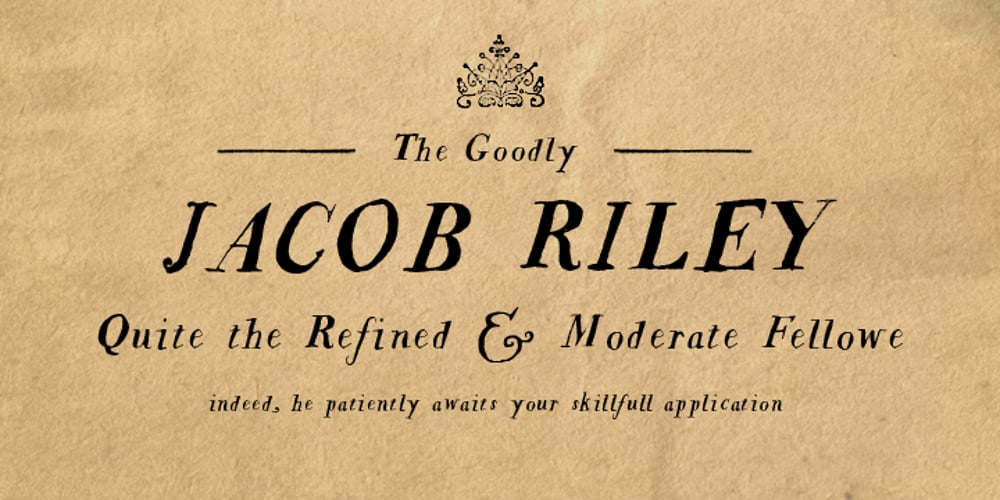
Jacob Riley Font Family was designed by Jessica McCarty and published by Magpie Paper Works. Jacob Riley contains 1 styles and family package options. Jacob Riley is based on antique 18th century printers’ specimens and has been hand-illustrated with calligraphy nibs dipped in walnut ink. A goodly fellow, Jacob delights in uses varied and sundry including personal correspondence, rustic decor, graphic display and even amongst the pages of children’s books.